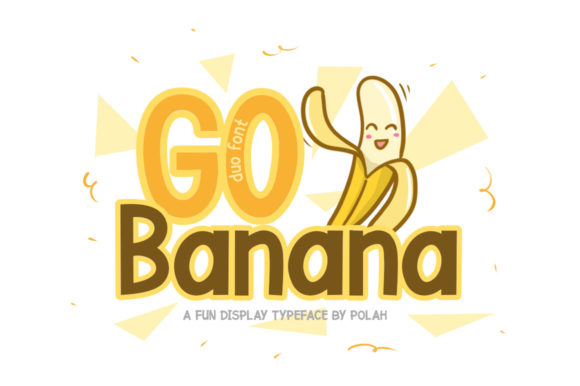
Journey into the world of Go Banana, the display typeface that sparks a visual revolution in design. Its captivating characters, available in regular and spirited outline styles, unleash a kaleidoscope of creative possibilities that will leave you spellbound.
Go Banana's whimsical nature knows no bounds, making it the perfect companion for a vibrant array of projects. Envision your name cards bursting with personality, posters that come alive with captivating messages, logos that radiate uniqueness, and magazine covers that tantalize the eyes. Its versatility extends to large-scale artwork, where its bold presence commands attention and ignites the imagination.
Whether you're a seasoned designer or just starting your creative journey, Go Banana empowers you to effortlessly elevate your designs. Its user-friendly nature welcomes both experts and novices, allowing you to effortlessly weave your artistic vision into reality.
* Unleash the Eccentricity: Go Banana's distinct style defies convention, inviting you to embrace your individuality and create designs that resonate with your authentic voice.
* Make a Statement: From brochures that demand attention to social media posts that jump off the screen, Go Banana's captivating presence ensures that your message will be heard loud and clear.
* Ignite Creativity: Let your imagination soar as you explore the boundless possibilities that Go Banana offers. Its versatility encourages experimentation, empowering you to push the boundaries of your creativity and craft designs that are truly unforgettable.
Don't settle for ordinary fonts that blend into the background. Embrace the extraordinary with Go Banana, the display typeface that ignites your passion for design and propels your creations to new heights.